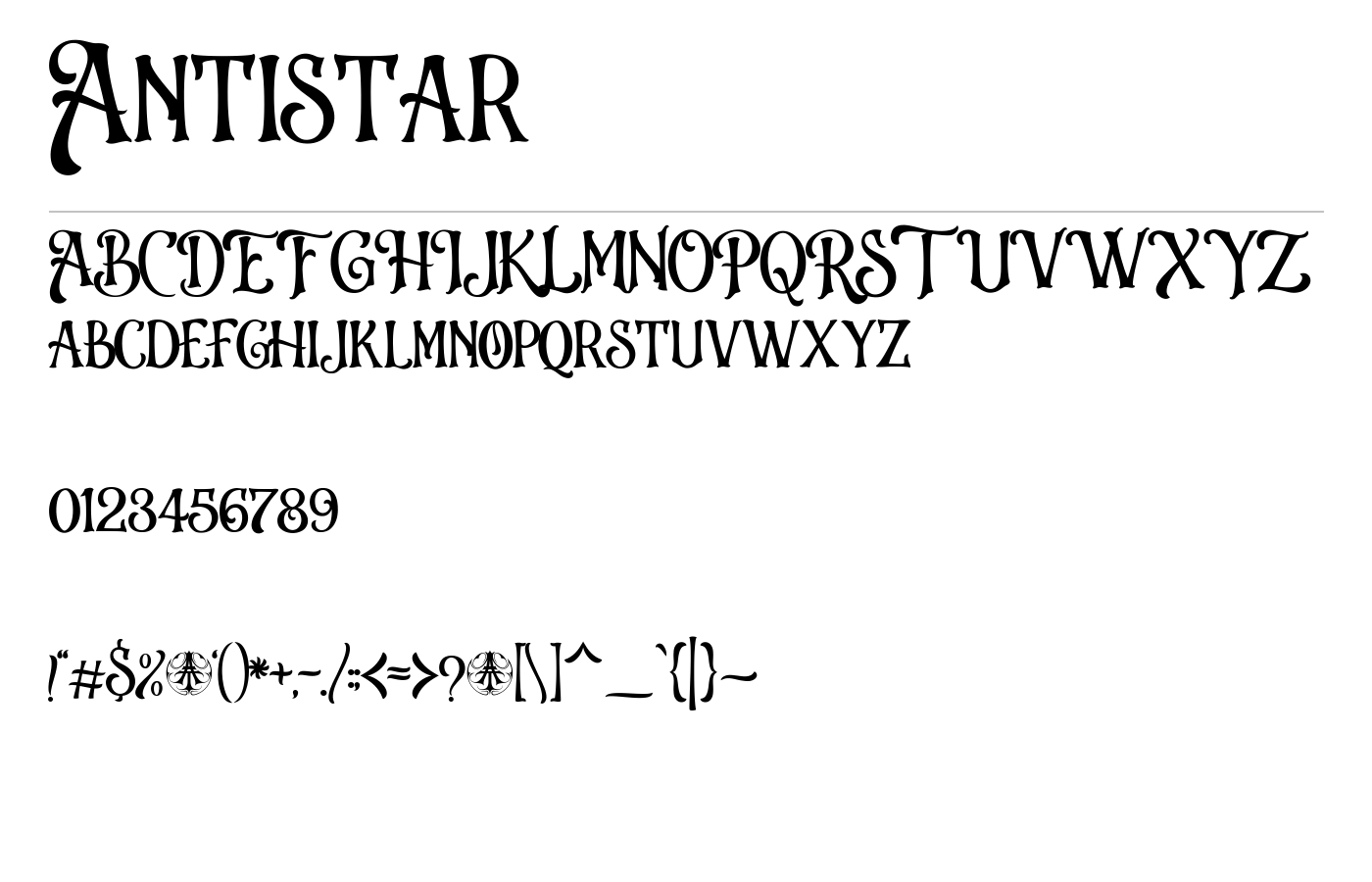
Antistar is a decorative serif font with a whimsical, vintage charm, featuring bold strokes and playful, slightly irregular serifs that give it a distinctive, artistic flair. Its strong contrast and detailed curves make it perfect for creative headlines, posters, and branding that want to convey a unique, retro-inspired personality with a touch of elegance and character. This font works well in designs that seek to stand out and deliver a memorable, expressive impact.
Antistar Font